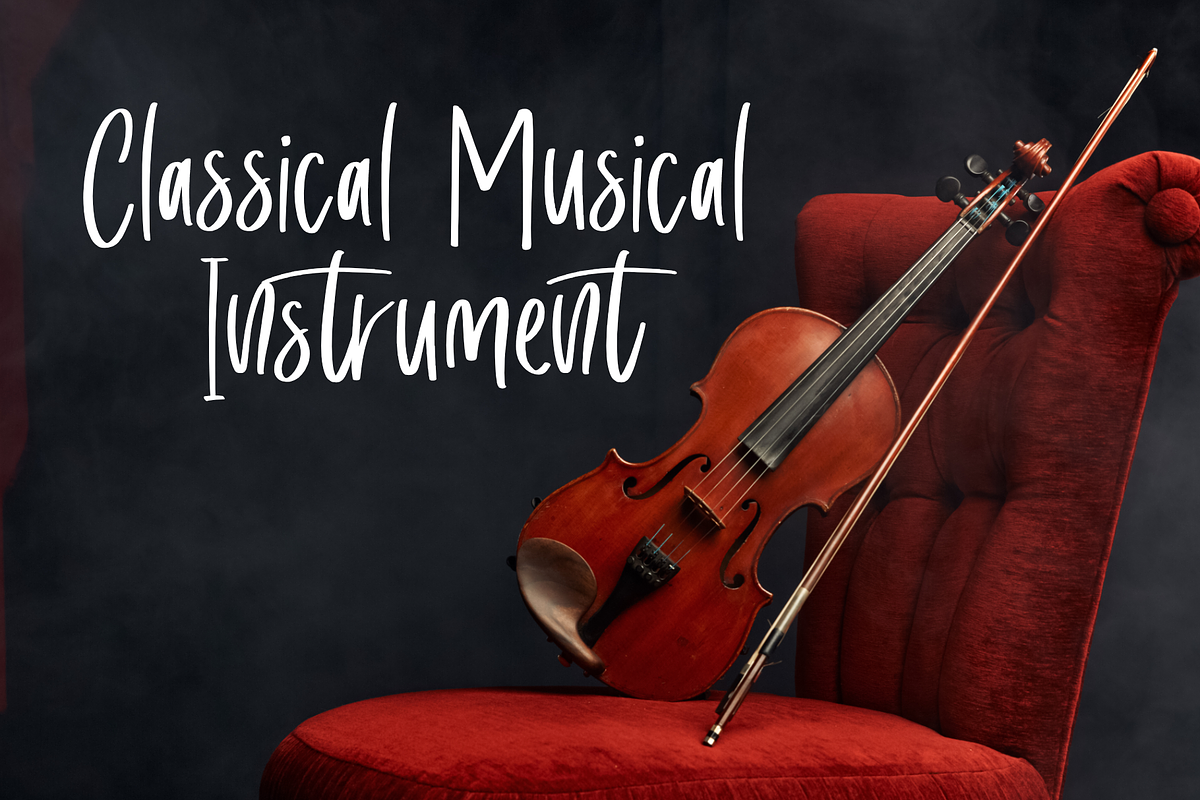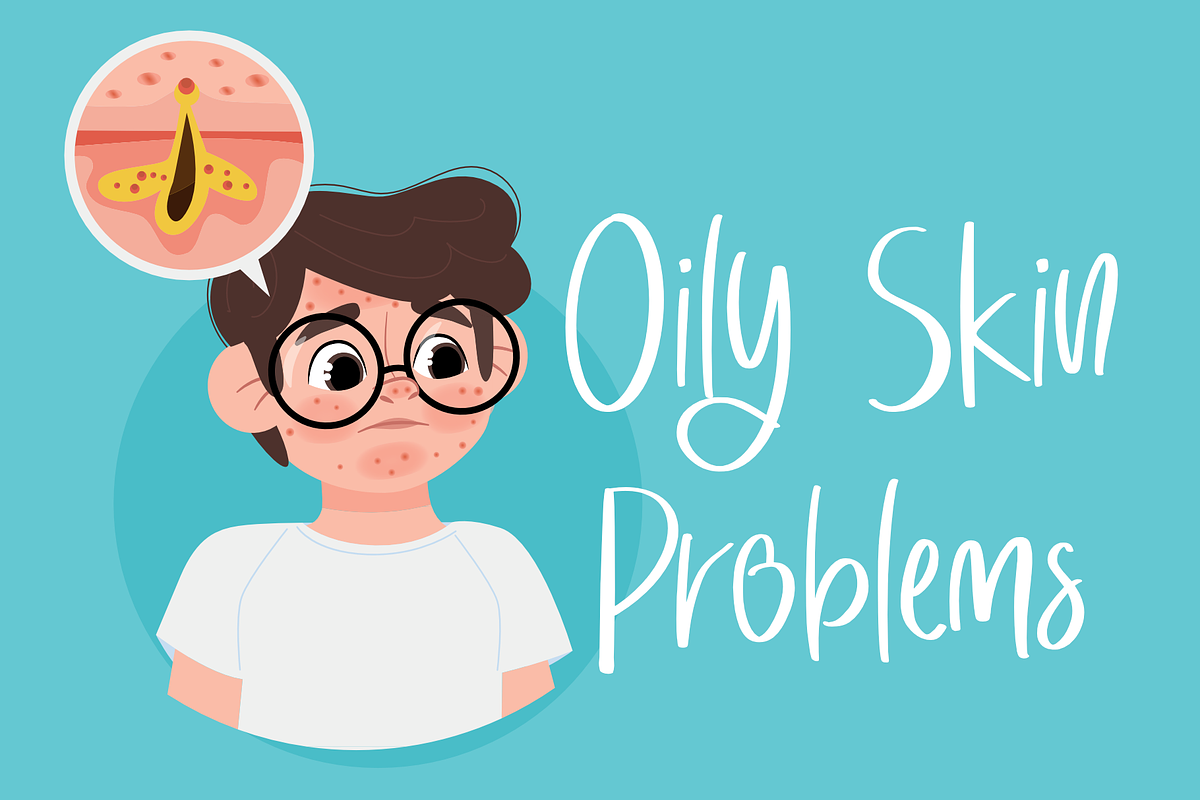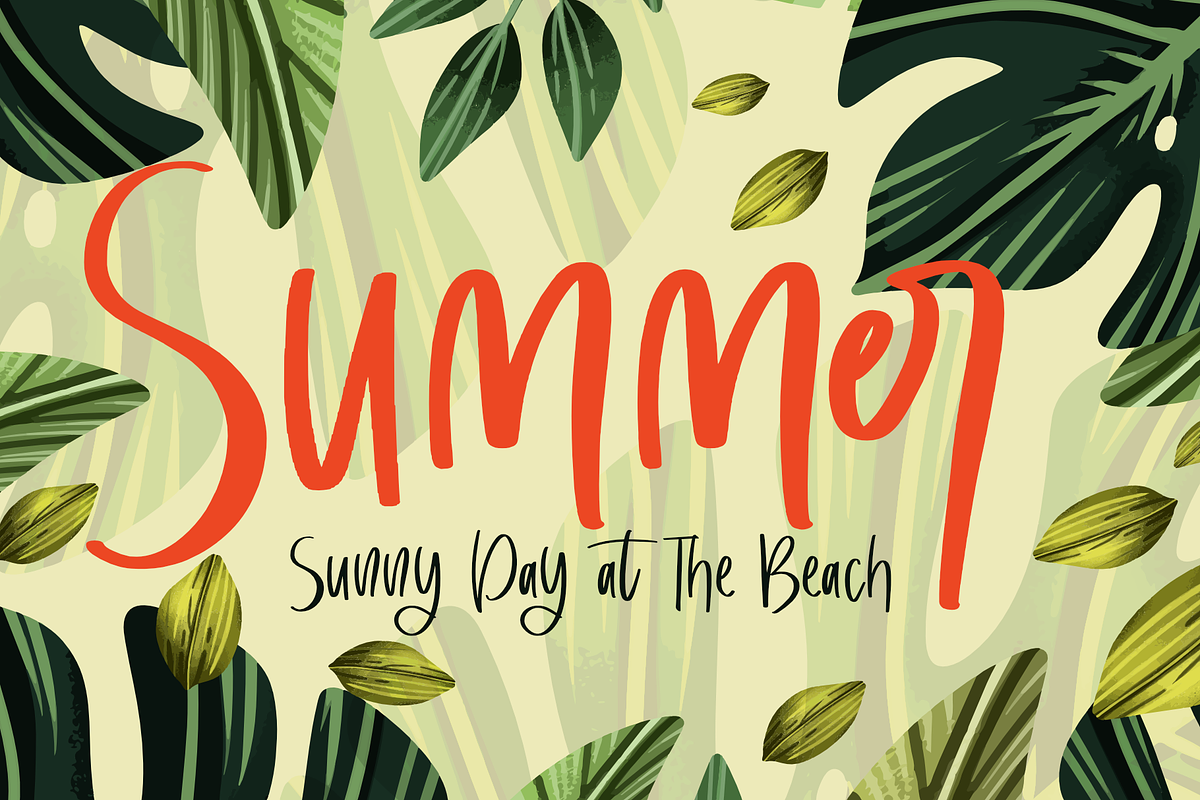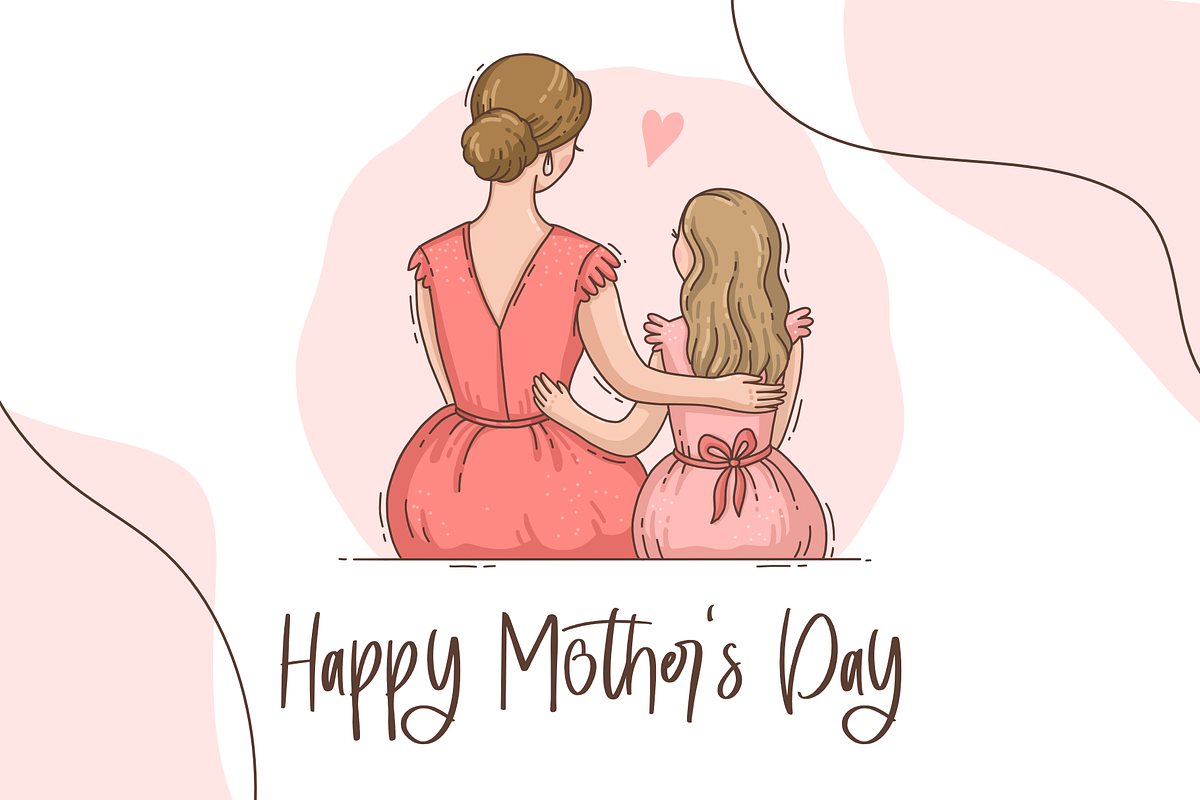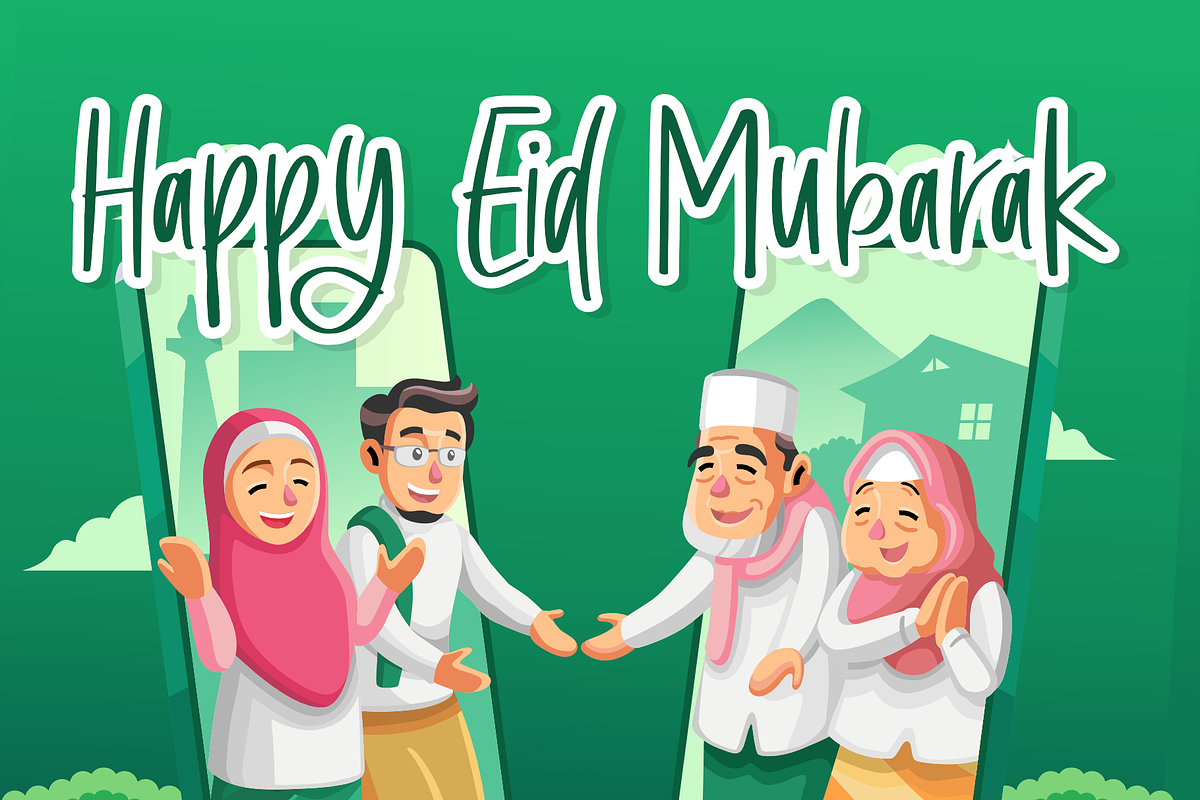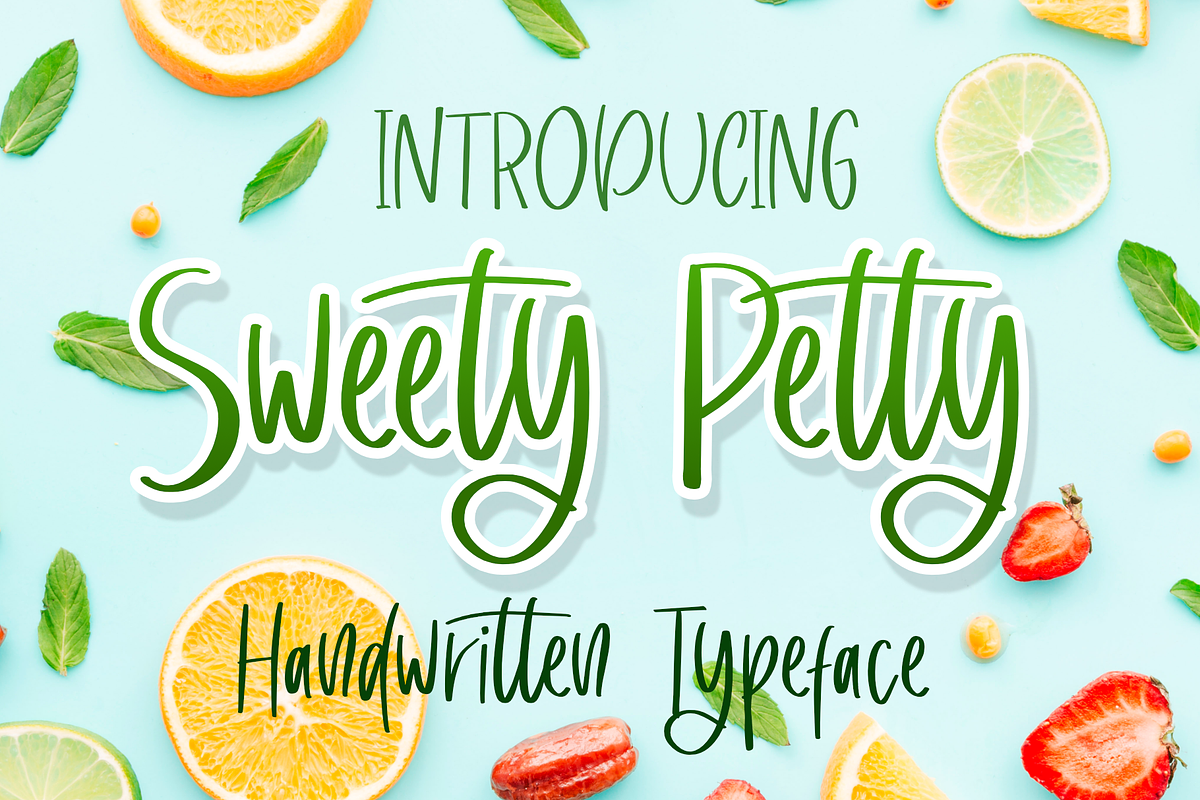
Sweety Petty
Sweety Petty is a simple, handwritten casual font that is simple but absolutely stunning!
This font is perfect for branding designs, advertisements, quotes, logos, annual events, song titles, and more!